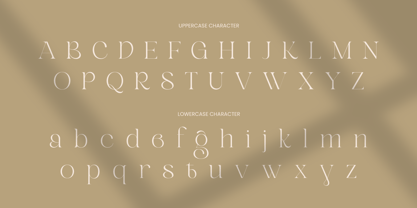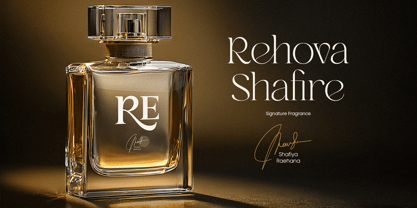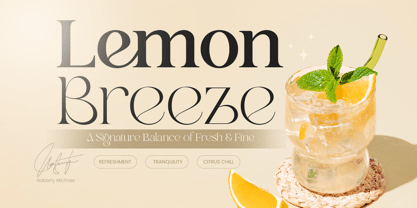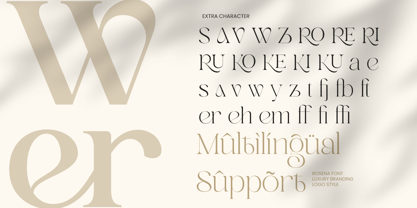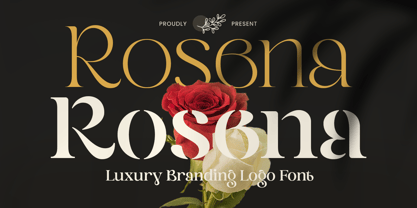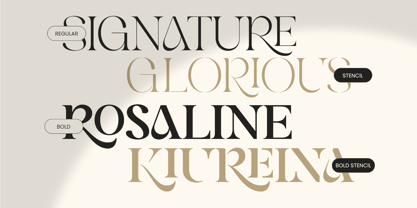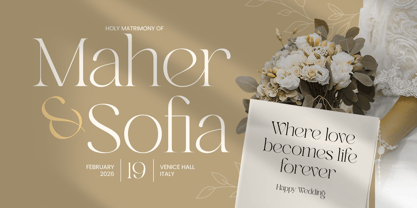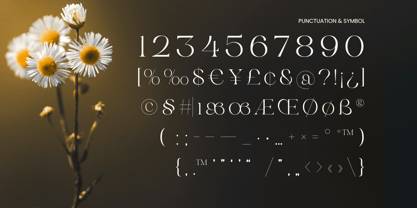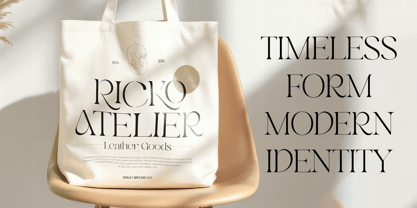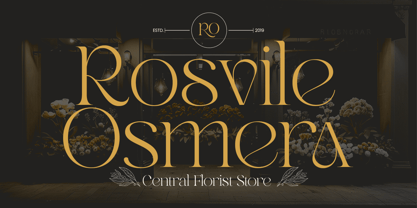
Rosena is a premium branding logo font designed to deliver a polished, high-end impression with modern clarity. Its refined letterforms and confident structure create a clean luxury feel, perfect for brands that want to look exclusive, professional, and instantly recognizable.
Built for logo design and brand identity, Rosena works beautifully across packaging, labels, website headers, social media campaigns, editorial layouts, signage, and premium product presentations. Whether you’re crafting a minimal logotype or a bold headline system, Rosena adds a sophisticated tone that elevates both digital and print designs.
Ideal for fashion, beauty, lifestyle, creative studios, and boutique brands, Rosena helps your typography feel intentional and premium—making every word look like part of a carefully curated identity.
Rosena – Premium Branding Font Features
Premium letterforms crafted for logo-focused typography
Ready with Regular and Bold, also available stencil style
Ideal for branding, logotypes, and high-end identity systems
Perfect for packaging, editorials, signage, and social media design
Clean modern look with classy, premium presence
Includes uppercase, lowercase, numerals, and punctuation
Strong readability for both print production and digital screens
OpenType features for refined typographic control
Make your identity look premium and unforgettable with ROSENA—built for branding that feels elegant and iconic. ✨